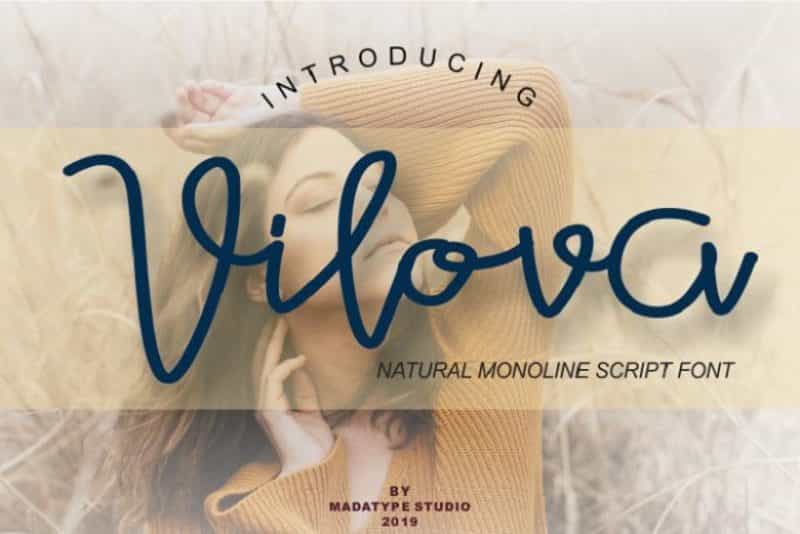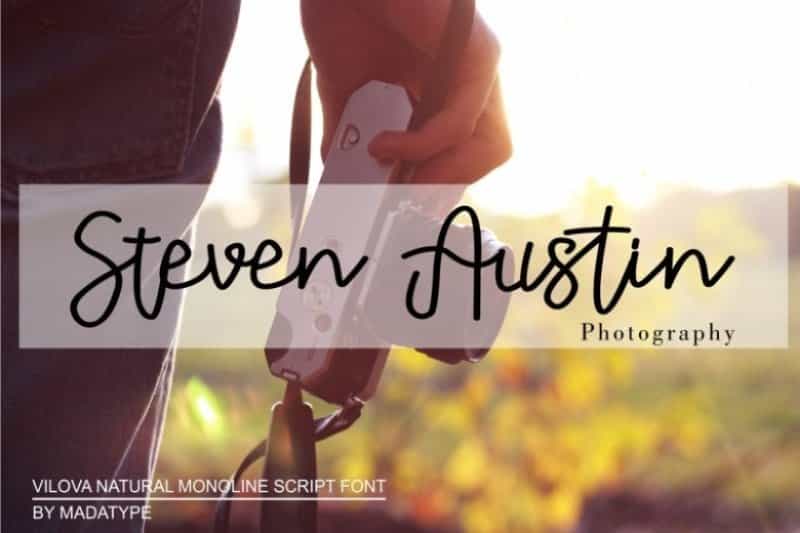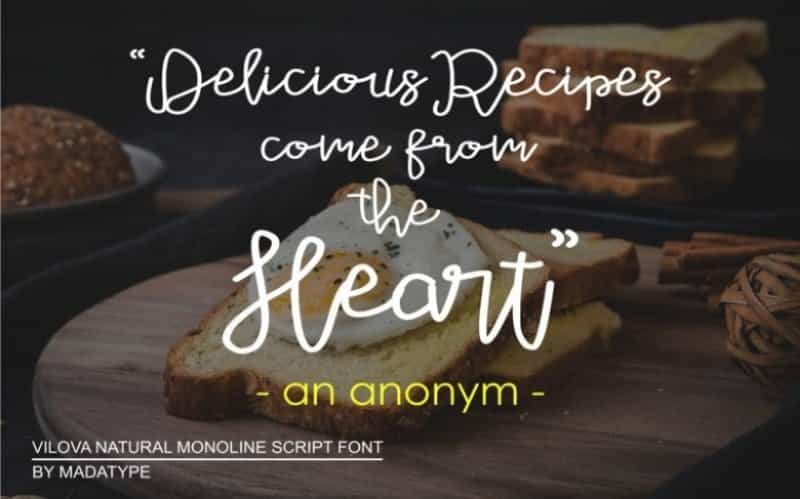
Vilova is a script font with an stylish handwritten appearance. It works perfectly for branding projects, product packaging, magazines, wedding invites or adding a touch of beauty to your designs with its heart alternates.